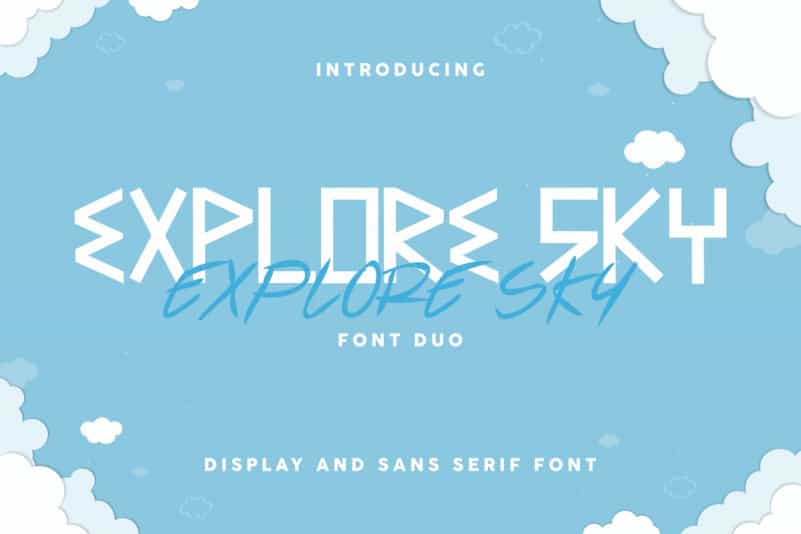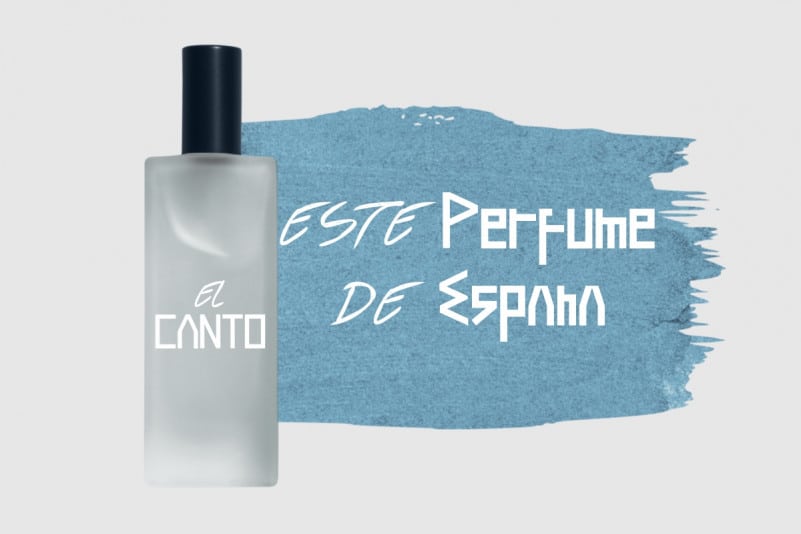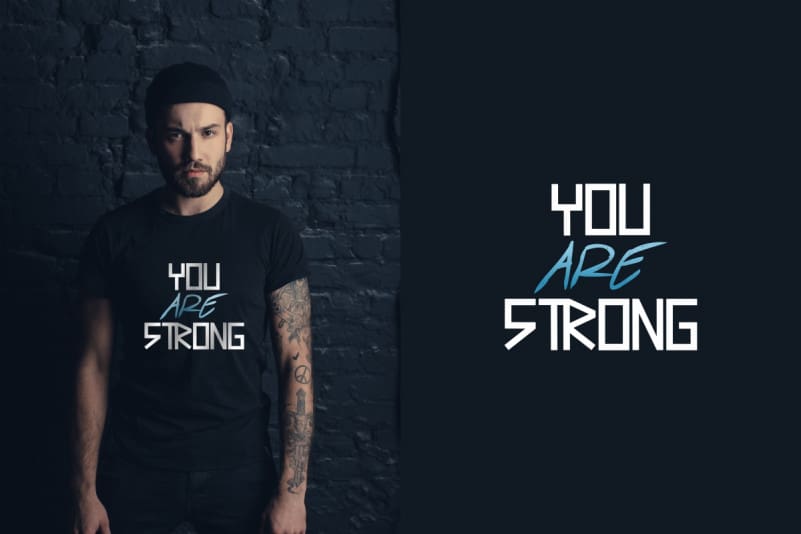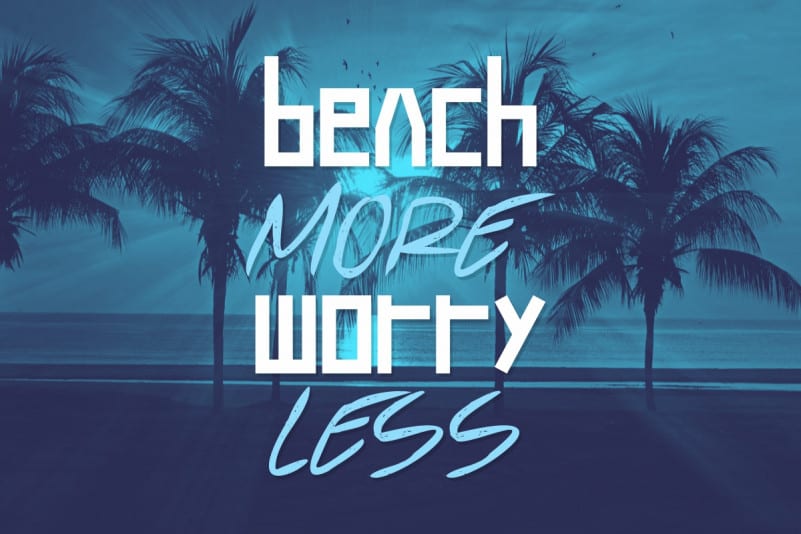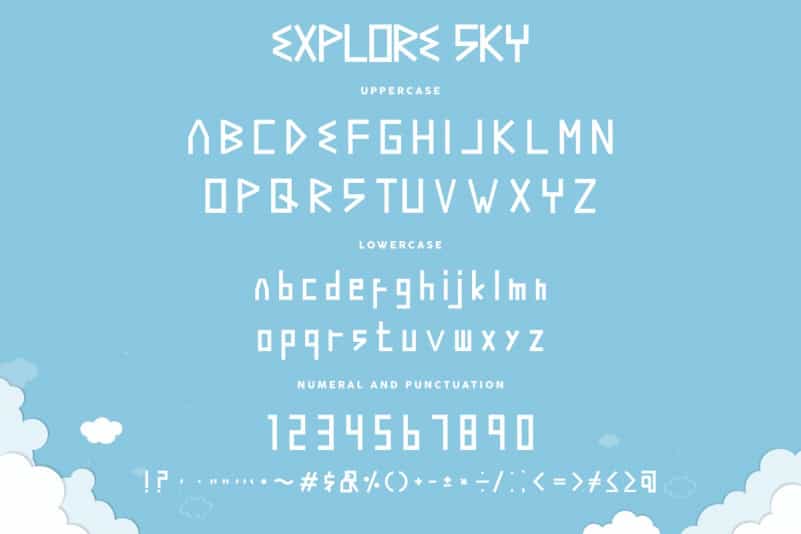
Explore Sky Font Duo Family
Explore Sky Font Duo Family is an exclusive font family with two different styles. This font has a stunning characters set, perfectly managed with well spaced and kerning. The theme style of this font will be modern futuristic, unusual, space, technology etc
Explore Sky Font Duo Family will be great for any projects including : branding, logo, stationery, business card, signage, flyer, brochure etc. Almost all industries will be match for this typeface: company, finance, startup, rocket, lab, education etd